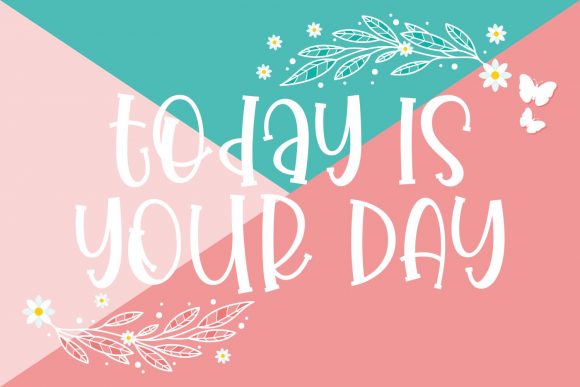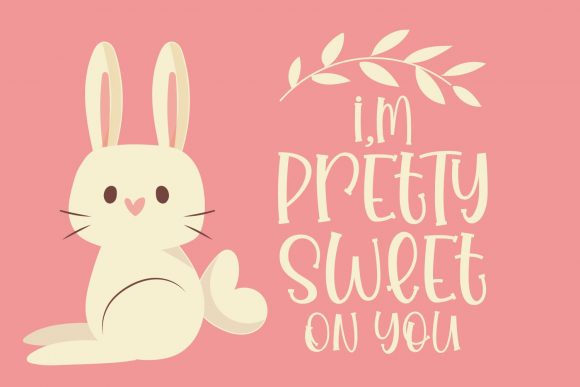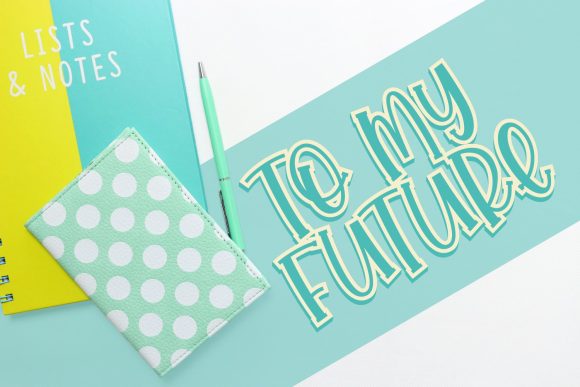
Easter’s on Its Way Font: A Cute and Charming Display Font for Your Designs
As Easter approaches, designers and crafters are on the lookout for fonts that can add a touch of whimsy and charm to their projects. If you’re looking for a font that can bring a smile to your face and make your designs stand out, look no further than Easter’s on Its Way font. In this article, we’ll take a closer look at this adorable display font and explore its features, uses, and benefits.
What is Easter’s on Its Way Font?
Easter’s on Its Way font is a cute and charming display font that’s perfect for Easter-themed designs, spring projects, and any other creative endeavor that requires a touch of playfulness. This font is designed to be whimsical and a bit quirky, making it ideal for designers and crafters who want to add a personal touch to their work.
Key Features of Easter’s on Its Way Font
So, what makes Easter’s on Its Way font so special? Here are some of its key features:
- Cute and charming design: This font is designed to be adorable and eye-catching, making it perfect for designs that require a touch of personality.
- Whimsical and quirky: Easter’s on Its Way font has a playful and carefree vibe that’s sure to bring a smile to your face.
- Display font: This font is designed for display purposes, making it perfect for headlines, titles, and other prominent text elements.
- Easter-themed: While this font can be used for any project, it’s specifically designed with Easter and spring in mind.
Uses for Easter’s on Its Way Font
So, how can you use Easter’s on Its Way font in your designs? Here are some ideas to get you started:
- Easter cards and invitations: This font is perfect for creating adorable Easter cards and invitations that will delight your friends and family.
- Spring-themed crafts: Whether you’re making DIY decorations, gift tags, or other crafts, Easter’s on Its Way font is a great choice.
- Social media graphics: Add a touch of whimsy to your social media graphics with this font, perfect for Easter-themed posts and promotions.
- Digital papers and planners: Use Easter’s on Its Way font to add a playful touch to your digital papers and planners.
Benefits of Using Easter’s on Its Way Font
So, why should you choose Easter’s on Its Way font for your designs? Here are some benefits to consider:
- Unique and eye-catching: This font is sure to make your designs stand out with its unique and eye-catching design.
- Versatile: While this font is specifically designed for Easter and spring, it can be used for any project that requires a touch of whimsy.
- High-quality design: This font is designed with high-quality craftsmanship, ensuring that it looks great in any design.
Tips for Using Easter’s on Its Way Font
Here are some tips for using Easter’s on Its Way font in your designs:
- Use it sparingly: While this font is adorable, it can be overwhelming if used too much. Use it sparingly to add a touch of whimsy to your designs.
- Pair it with complementary fonts: Easter’s on Its Way font pairs well with clean and simple fonts. Try pairing it with a sans-serif font for a beautiful contrast.
- Experiment with colors: This font looks great in bright and pastel colors. Experiment with different colors to find the perfect combination for your design.
Easter’s on Its Way font is a cute and charming display font that’s perfect for Easter-themed designs, spring projects, and any other creative endeavor that requires a touch of playfulness. With its whimsical and quirky design, this font is sure to bring a smile to your face and make your designs stand out. Whether you’re a designer or crafter, Easter’s on Its Way font is a great choice for adding a personal touch to your work.